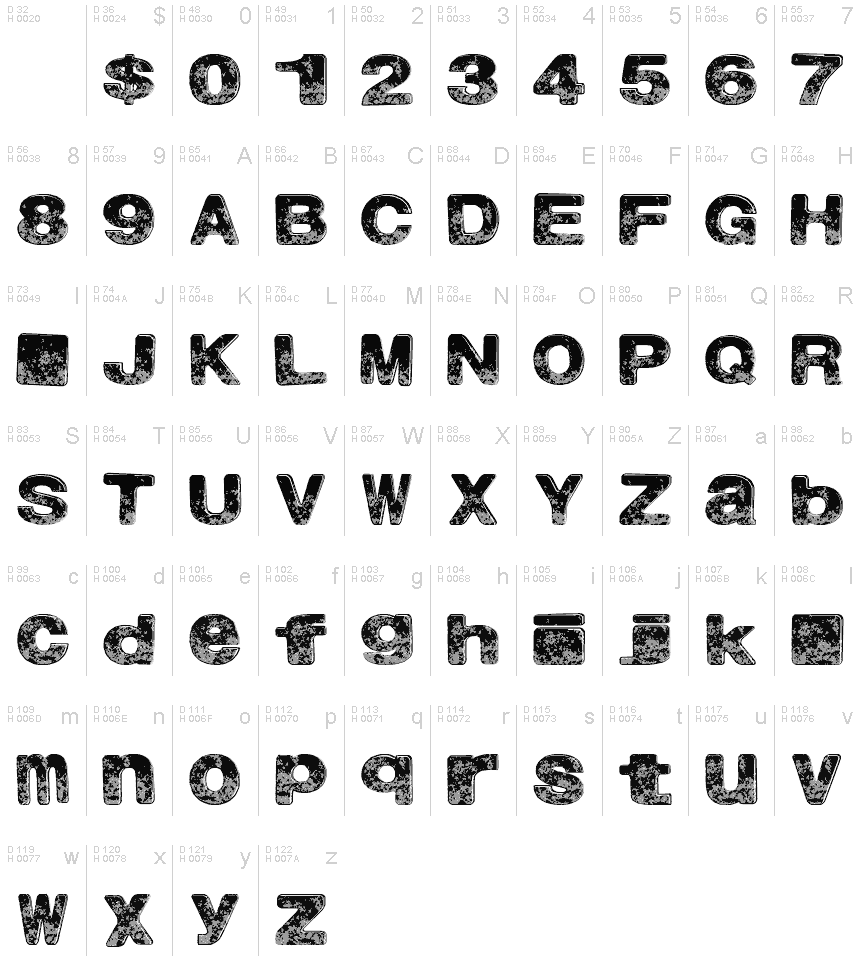
NorthBeach
North Beach is a striking display font that exudes a rugged, weathered charm. Its bold, eroded letters evoke a sense of vintage Americana, evoking the gritty character of a seaside town. The uneven strokes and textured edges create an impactful, eye-catching aesthetic that would shine in a wide range of design applications, from editorial layouts to packaging and branding. This versatile font can lend a distinct, industrial-inspired flair to headlines, titles, and other display elements, making it a compelling choice for designers seeking to capture a sense of urban authenticity and character.
This font's bold presence and distinctive style make it a compelling option for creating impactful visual statements. Its versatility allows it to seamlessly integrate into various design contexts, from gritty, industrial-inspired aesthetics to vintage-inspired branding and packaging.